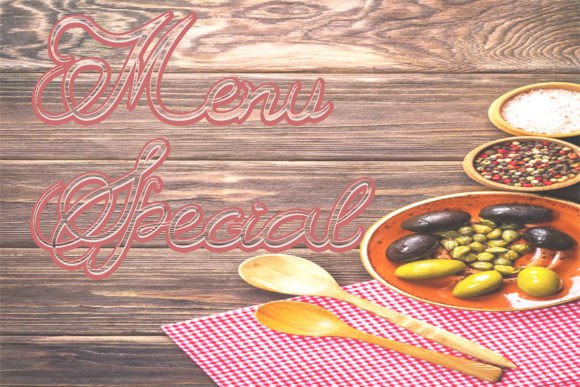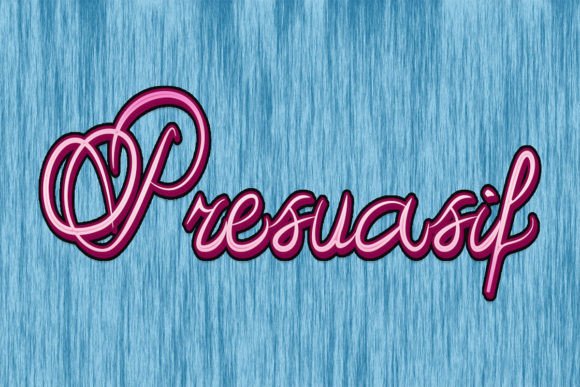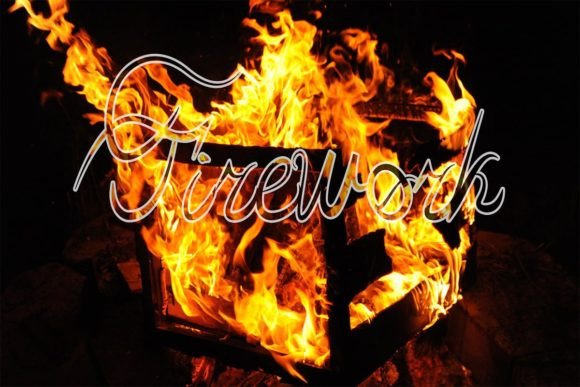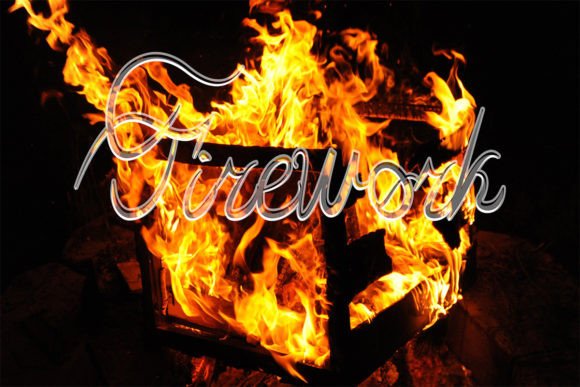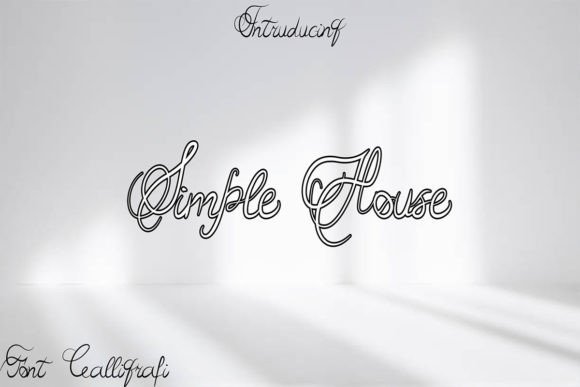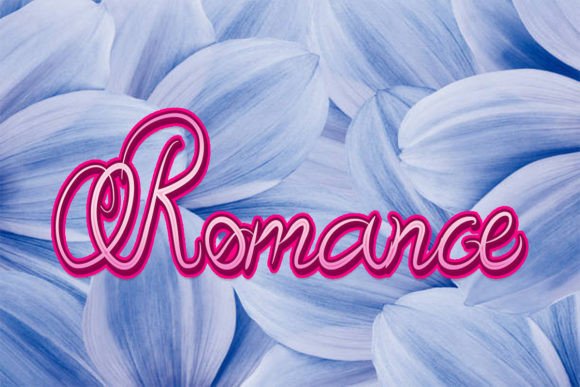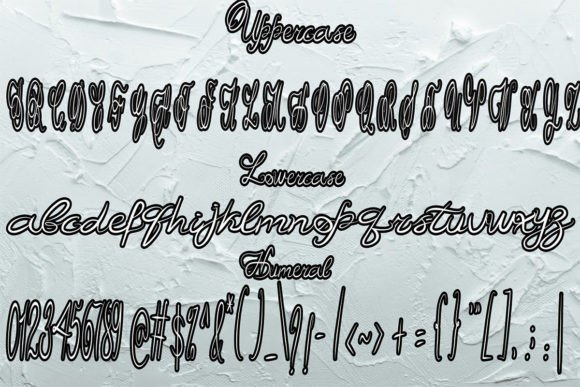
Firework Font
About Firework Font
**Firework Handwritten Font – Add a Dazzling Spark to Your Designs**
The Firework Handwritten Font is a dazzling and versatile typeface that brings a burst of creativity and personality to your design projects. With its playful and expressive style, Firework can be used in various applications to create designs that stand out. Here are some exciting ways to use the Firework Handwritten Font:
1. **Greeting Cards:** Design lively and eye-catching greeting cards for birthdays, holidays, and special occasions using Firework. Its playful strokes and unique characters will make your cards memorable.
2. **Headlines and Titles:** Make headlines, titles, and headings pop with Firework. Whether it’s for a magazine, website, or poster, this font adds a touch of excitement to your typography.
3. **Event Invitations:** Create dynamic and vibrant event invitations, including party invites, wedding invitations, and more, with Firework. It sets the tone for a fun and celebratory gathering.
4. **Party Decorations:** Use Firework to design banners, posters, and decorations for parties and celebrations. Its festive style is perfect for adding a playful atmosphere to your party visuals.
5. **Children’s Books:** Illustrate children’s books with the Firework font to capture the imagination of young readers. Its whimsical and friendly characters make it suitable for storytelling.
6. **Posters and Flyers:** Design attention-grabbing posters and flyers for events, promotions, or advertising campaigns. Firework’s lively design will draw people in.
7. **Website Graphics:** Enhance your website with dynamic graphics and banners created with Firework. It adds a touch of energy and excitement to web design.
8. **Social Media Posts:** Create engaging and shareable social media posts using Firework. Its expressive letters and playful style are perfect for boosting your online presence.
9. **Logo Design:** Design logos and brand identities with Firework to give your brand a unique and memorable look. It works well for brands that want to convey creativity and excitement.
10. **Packaging Design:** Customize packaging for products that target a youthful and fun-loving audience. Firework adds a burst of energy to product labels and packaging.
11. **Art Prints:** Design colorful and lively art prints using Firework for a whimsical and artistic touch. It’s great for creating artwork that stands out in galleries and exhibitions.
12. **Scrapbooking:** Add a playful and creative element to your scrapbooking projects with Firework. It’s perfect for journaling, titles, and decorative elements.
13. **Apparel Design:** Use Firework to design apparel graphics, including T-shirts, hoodies, and accessories. It’s ideal for brands targeting a youthful and energetic audience.
14. **Party Supplies:** Customize party supplies such as napkins, cups, and favor bags with Firework for a coordinated and festive look.
15. **DIY Projects:** Incorporate Firework into various DIY projects, from handmade gifts and stationery to home decor and crafting.
The Firework Handwritten Font’s vibrant and expressive style makes it a versatile choice for creating designs that spark excitement and joy. Whether you want to add a playful touch to your projects or create visuals that celebrate life’s special moments, Firework brings a dazzling spark to your typography and design work.